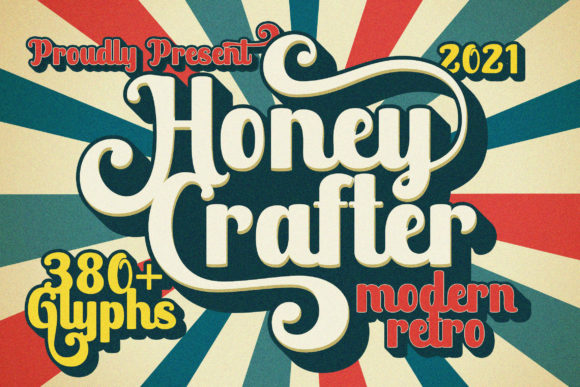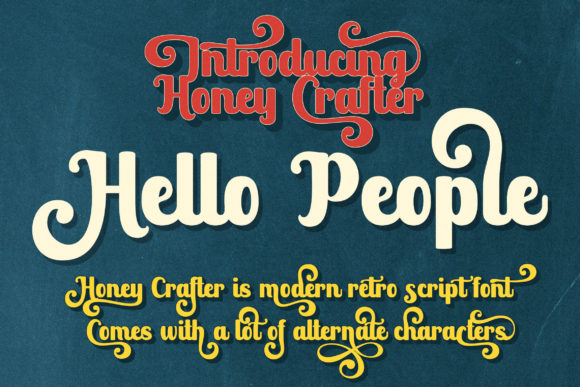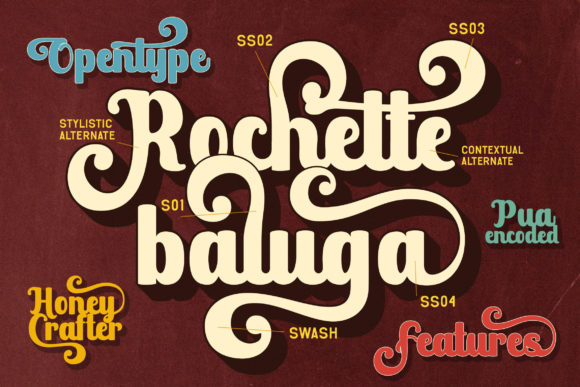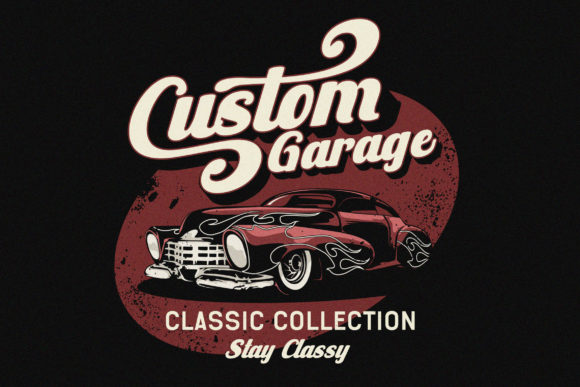
Honey Crafter Font: Retro Script for Eye-Catching Logo Design
About the Honey Crafter Font
From logos to headlines, the Honey Crafter Font is the perfect choice for making a lasting impression. Honey Crafter is a gorgeous and bold handwritten font, crafted to give your headlines and logotype projects a stylish touch. This font reads as strong, confident, and dynamic and can add tons of nostalgic character to your designs. Honey Crafter is PUA encoded which means you can access all of the amazing glyphs and ligatures with ease!
Honey Crafter excels in headline treatments, logos, and short, impactful text for branding materials and posters. Its bold, confident nature makes it ideal for projects requiring a strong visual presence. However, its handwritten style is less suitable for body text or lengthy paragraphs, where legibility suffers. Avoid using it in UI contexts or for small sizes.
To complement its handcrafted feel, pair Honey Crafter with a clean sans-serif like Montserrat for a contemporary contrast, or a classic serif like Garamond for a touch of timeless elegance. A simple geometric sans-serif could also provide a modern counterpoint. Avoid pairing it with other script fonts, which would create visual clutter.
The font’s overall personality is best described as bold, friendly, and slightly nostalgic. It’s perfect for brands aiming for a handcrafted, approachable, yet confident image – think artisanal food products, craft breweries, or boutique businesses.
Honey Crafter Font Usage Examples
Honey Crafter Font Example